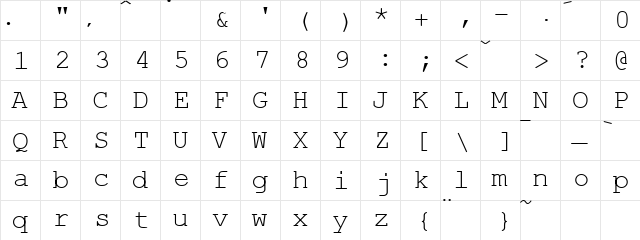
Diacritic al Mark Courier
Design Context for Diacritic Typeface
Diacritic brings the precise, column-aligned rhythm of monospaced typography to designs that value technical clarity and systematic order.